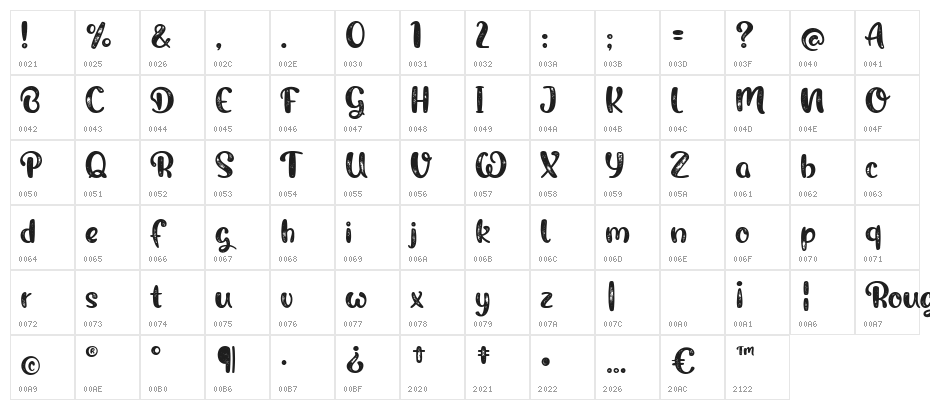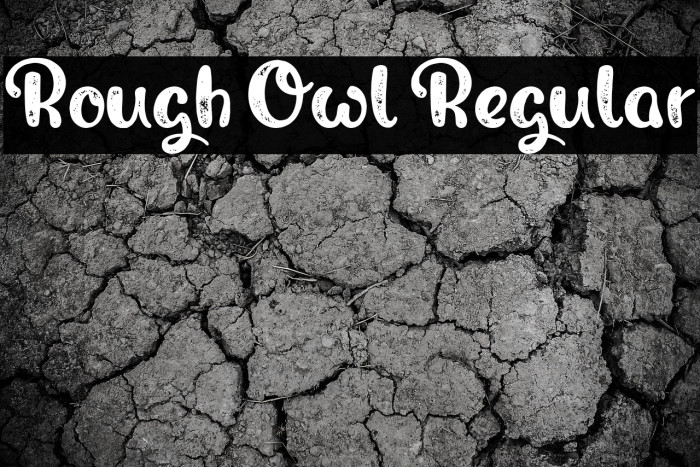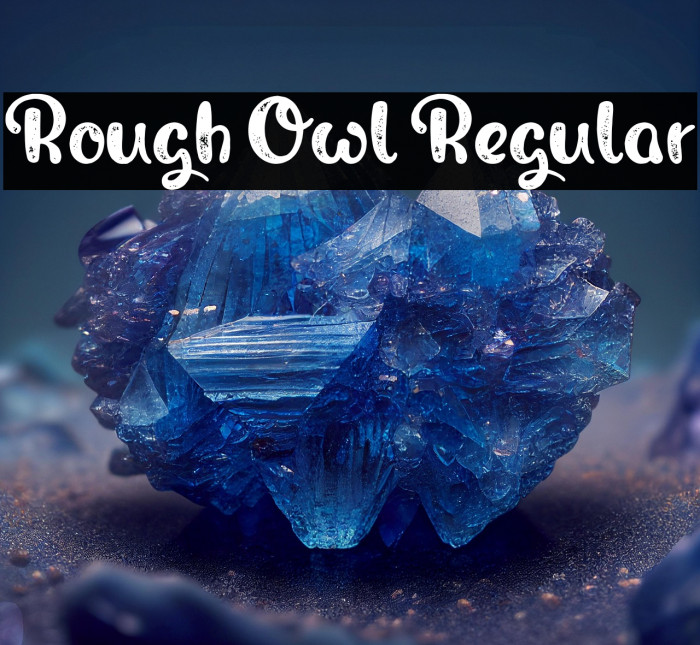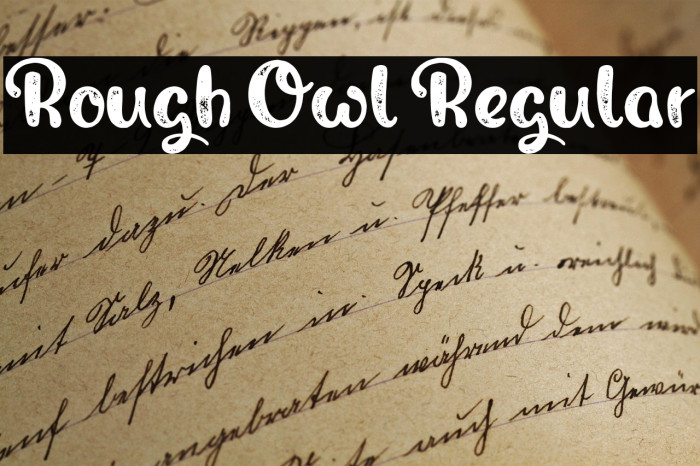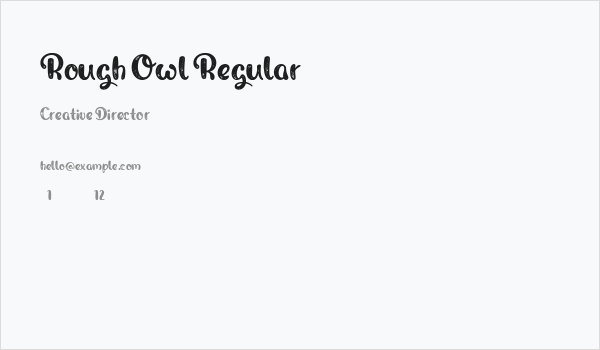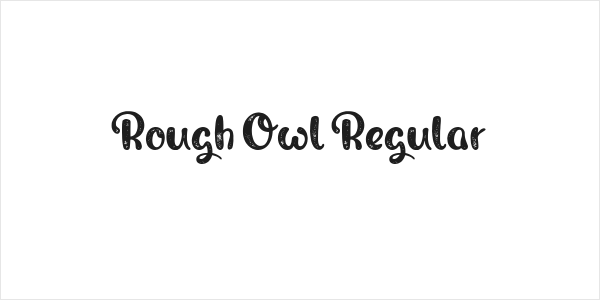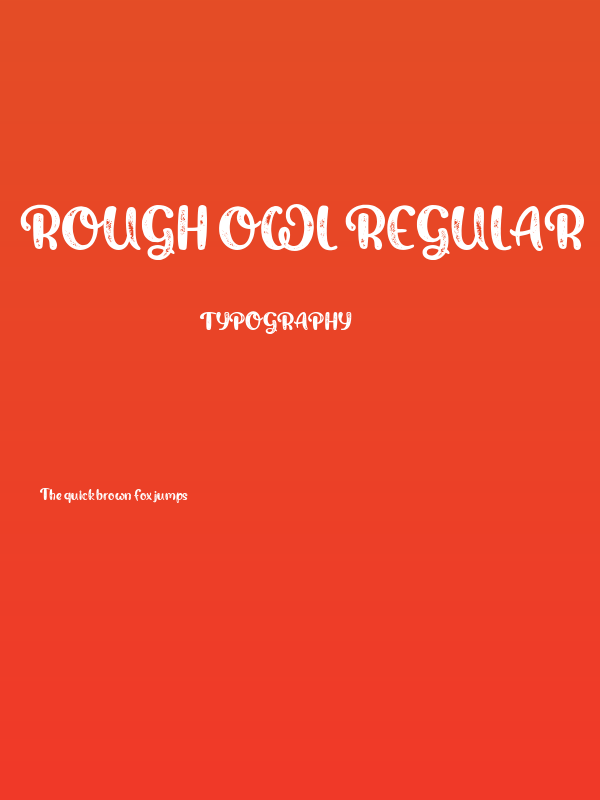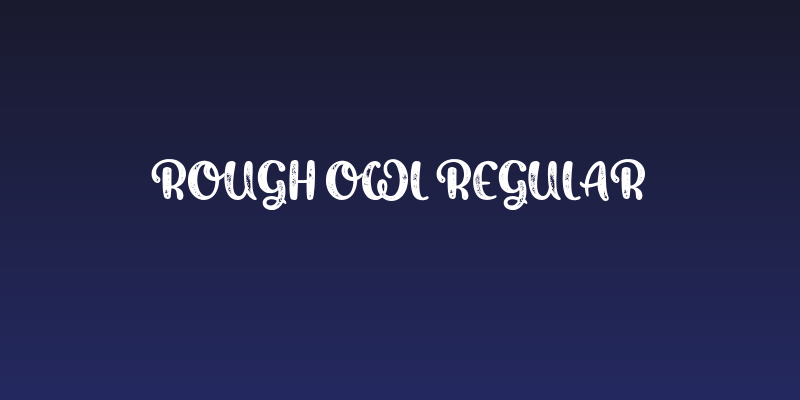
Rough Owl Regular Font
Rough Owl Regular Description
This font features a bold and playful design with a distressed texture that gives it a rustic and handcrafted appearance. The characters are rounded and slightly irregular, adding a whimsical and artistic touch. The uppercase and lowercase letters maintain a consistent style, with some letters having unique flourishes that enhance their visual appeal. The numbers and special characters are designed to match the overall aesthetic, making this font versatile for various creative projects. Its boldness ensures readability while the textured effect adds depth and character.